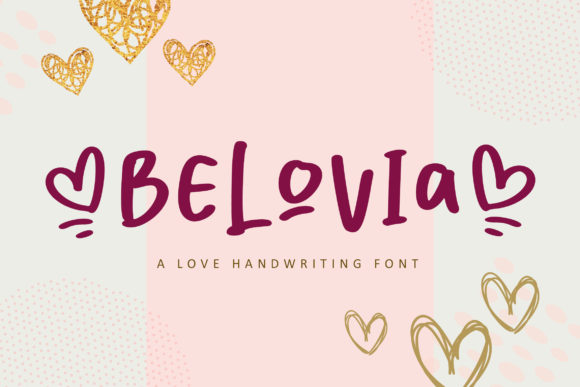
The Belovia Font: A Modern, Handwritten Gem for Your Creative Projects
A Personal Review: What I Love About Belovia
Here’s what makes Belovia a standout font:
- ✨ Modern simplicity: Belovia strikes the perfect balance between modernity and authenticity. Its clean lines and simple letterforms make it versatile for a wide range of projects.
- ✅ Authentic feel: The font’s organic, handwritten feel adds a touch of warmth and personality to any design.
- 🌈 Colorful possibilities: Belovia’s elegant letterforms look stunning in a variety of colors and textures, making it perfect for branding, invitations, and more.
While Belovia is an excellent font, there are a few things to keep in mind:
- 🤔 Limited character set: Belovia is a single-weight font, which might limit its flexibility for certain projects.
- ⚠️ Not suitable for body text: Due to its elegant, cursive nature, Belovia is best used for headings, titles, or short paragraphs.
The Backstory Behind Belovia
Belovia was designed with the intention of creating a modern, handwritten font that exudes elegance and simplicity. The designer aimed to craft a font that would be versatile enough for a wide range of projects, from branding and invitations to headings and titles.
| What is Belovia best used for? | Belovia is ideal for branding, invitations, headings, and titles. Its elegant, handwritten feel makes it perfect for creative projects. |
| Does Belovia support OpenType features? | Yes, Belovia supports OpenType features, including Stylistic Alternates, Glyphs, and Stylistic Sets. |